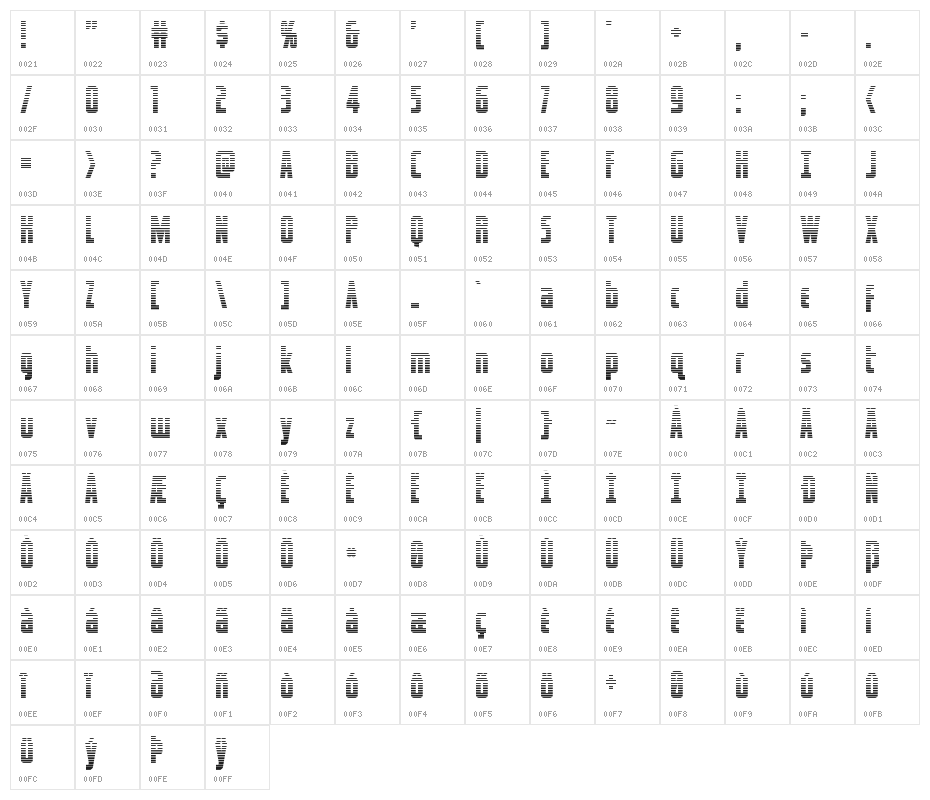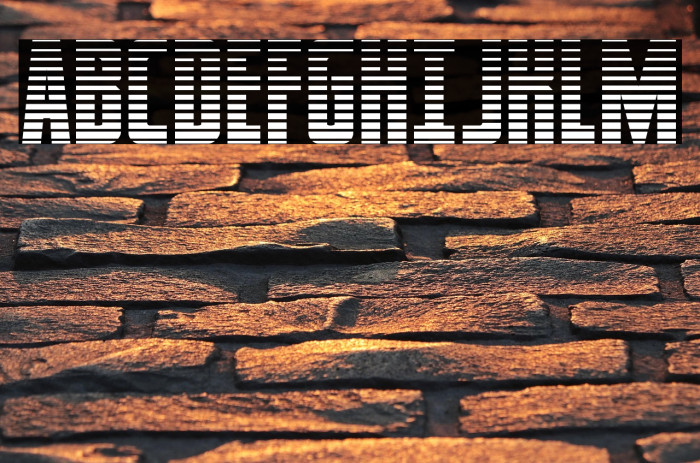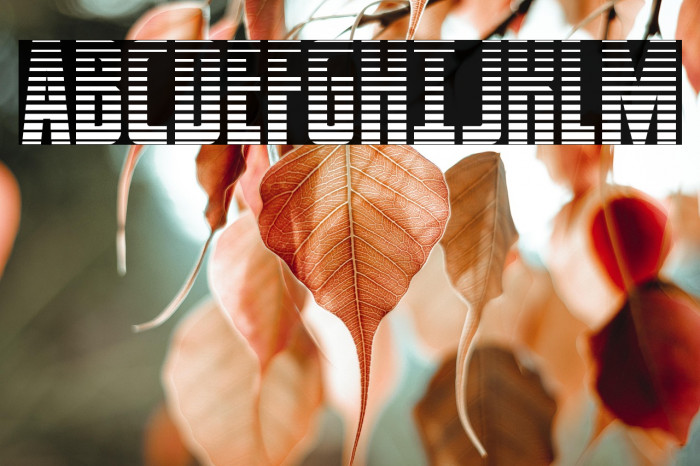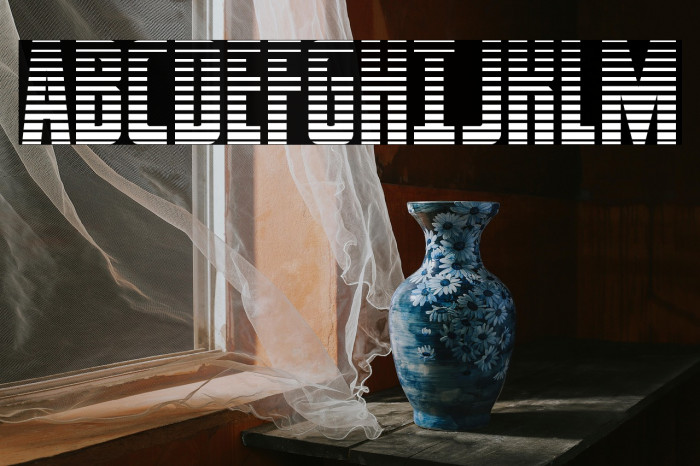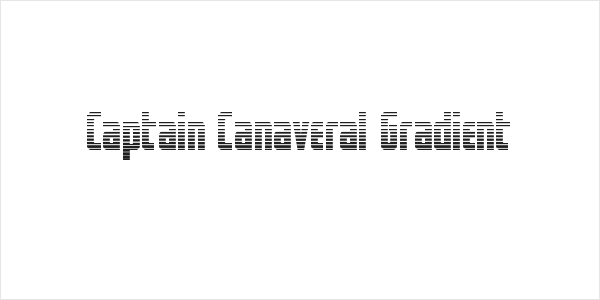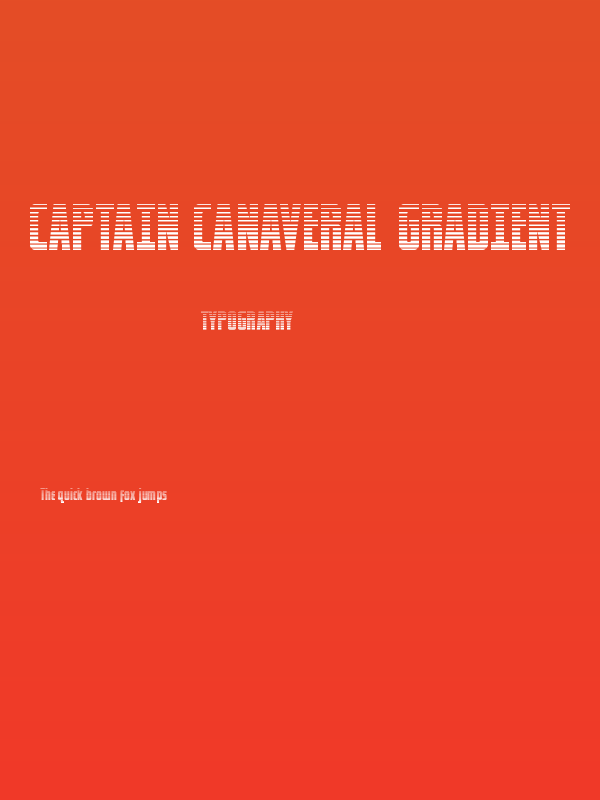
Captain Canaveral Gradient Font
Captain Canaveral Gradient Description
This font features a bold, futuristic design with a distinctive gradient effect created by horizontal lines. The characters are wide and blocky, giving them a strong presence. The uppercase and lowercase letters maintain a consistent style, with the gradient lines creating a sense of movement and depth. The numbers and special characters follow the same design principles, ensuring uniformity across all glyphs. This font's unique aesthetic makes it stand out, ideal for projects that require a modern and dynamic look.